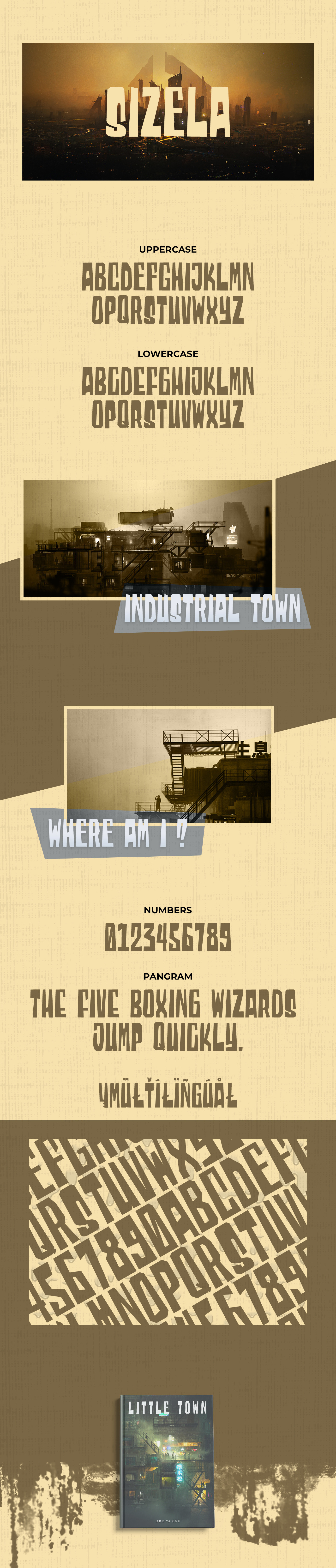
Sizela Typeface
Sizela is simple, twisted and funny font with lack of readability. You can use in big titles, posters, lettering, headlines and book covers to create a very awesome look.